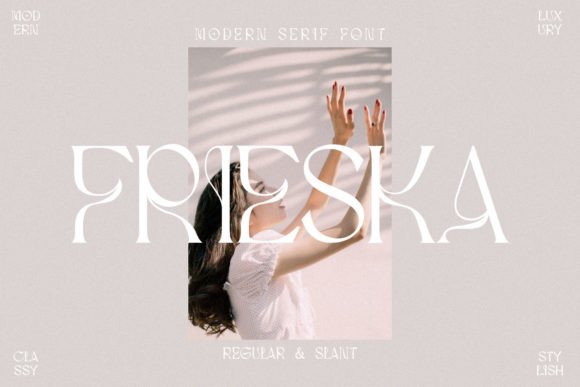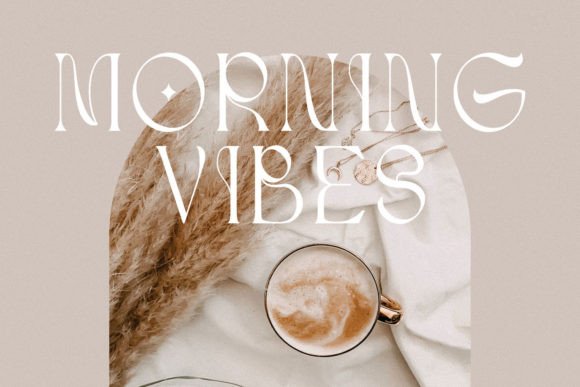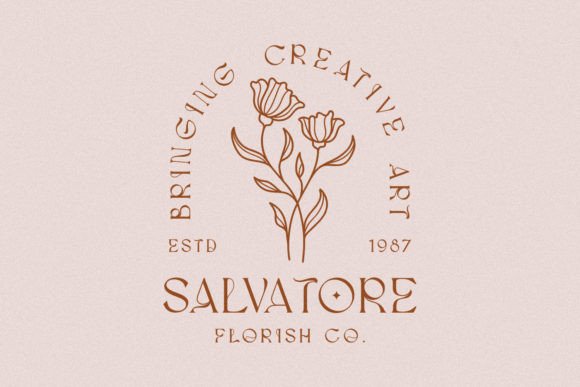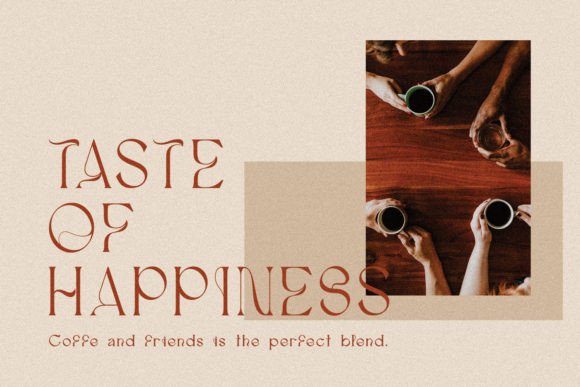
Frieska Font: Elegant Serif Typography for Luxury Branding & Wedding Designs
About the Frieska Font
Explore the possibilities with Frieska Font, a font that offers both beauty and functionality. Frieska is a decorative serif typeface that has its own unique style & modern look. It’s the perfect fit for all luxury projects, such as wedding invitations, signatures, luxury logos, printed quotes, greetings cards, social media headers, product packaging, and many more!
Frieska’s strong serif strokes and decorative elements make it ideal for headlines, short text blocks, and branding applications where a touch of elegance and sophistication is desired. It excels in logo design, packaging for premium products, and short-form marketing materials such as social media posts and print advertisements. However, its decorative nature makes it less suitable for body text or UI elements requiring high readability.
Its inherent boldness pairs well with clean sans-serif fonts like Montserrat or Open Sans for a balanced contrast; a script font such as Great Vibes would add a touch of vintage charm for wedding invitations, while a geometric sans-serif like Futura would create a more modern, high-end feel for corporate branding.
Frieska projects a confident, sophisticated personality, best suited for brands aiming for a luxurious or premium image. Avoid using it where readability and clear communication are paramount.
Frieska Font Usage Examples
Frieska Font Example